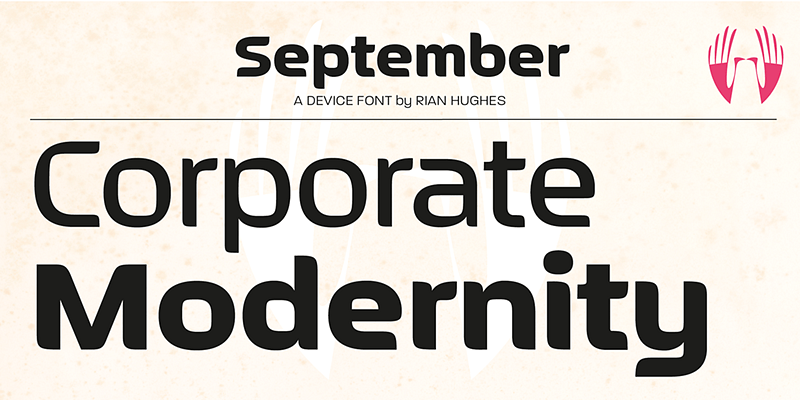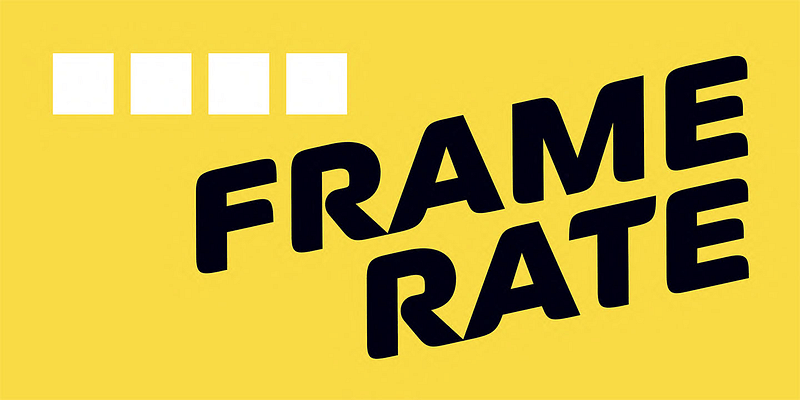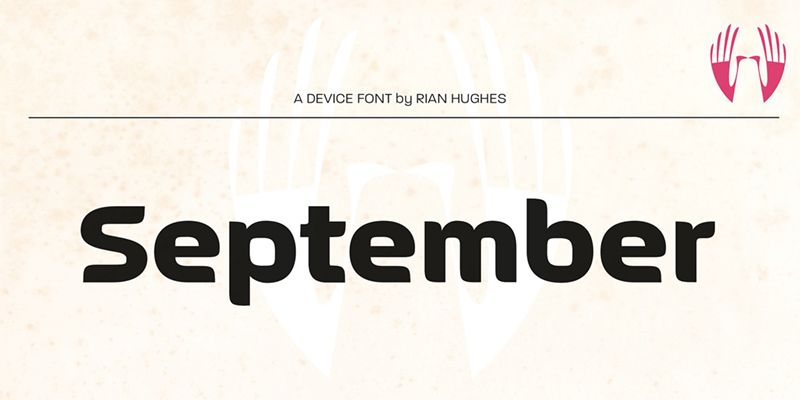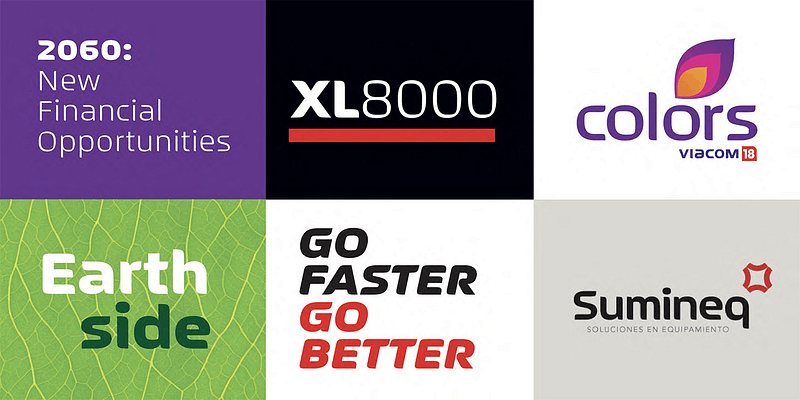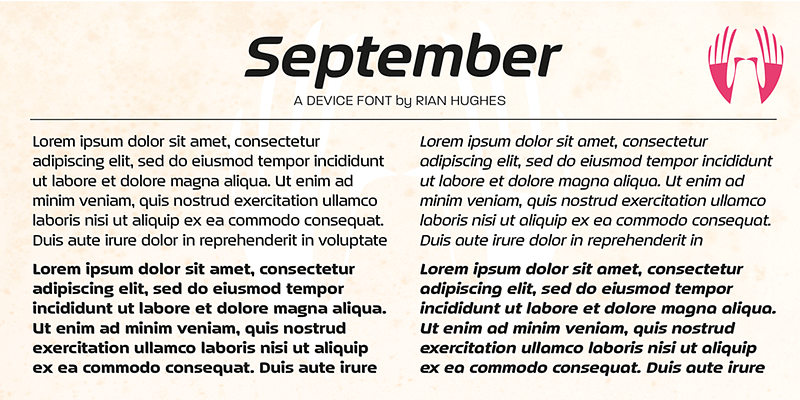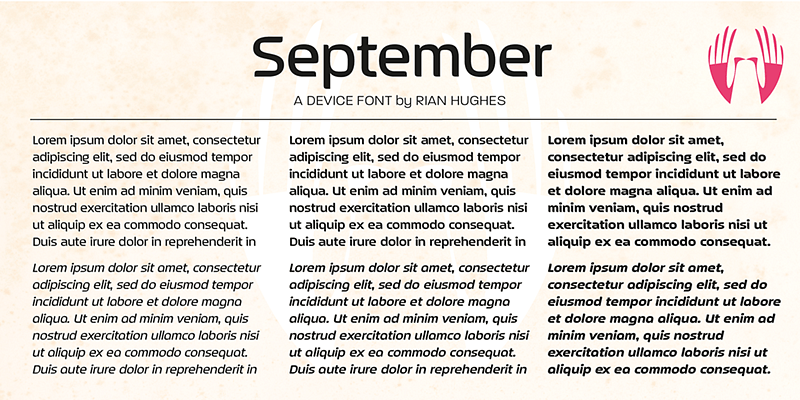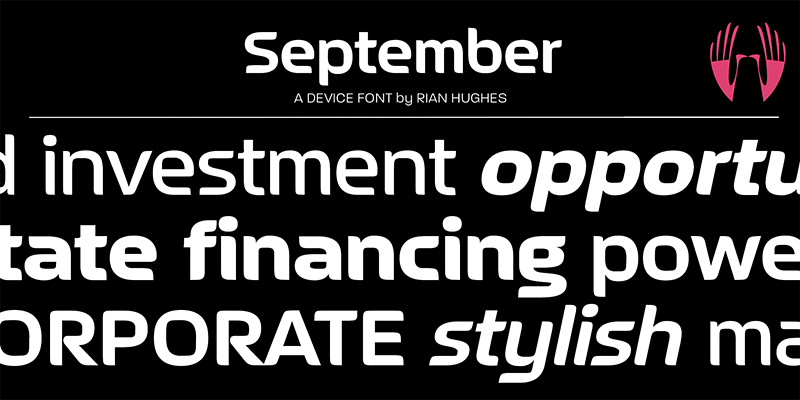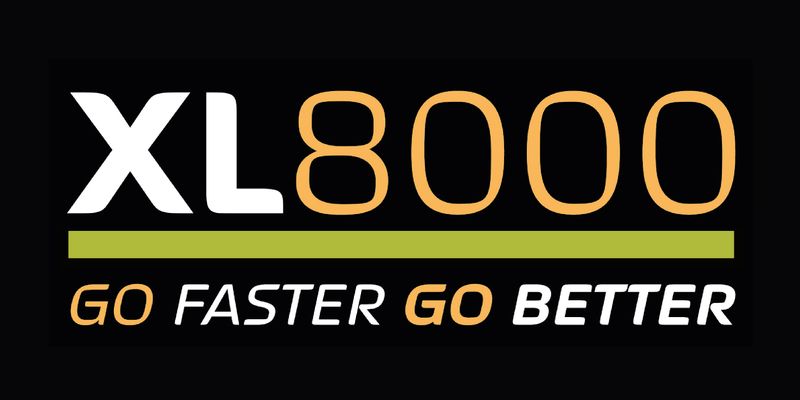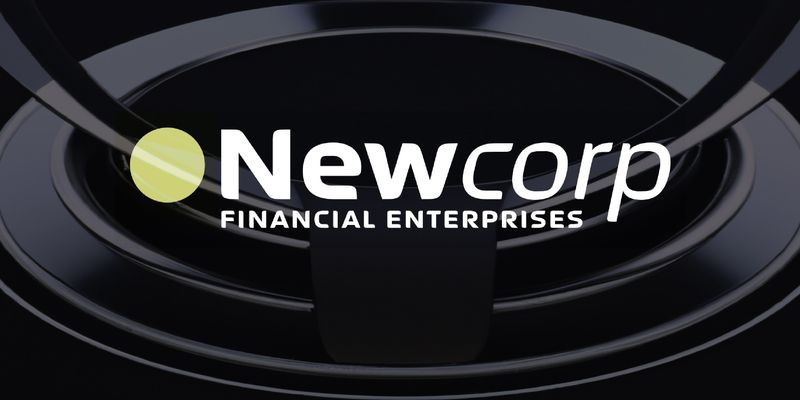
A strong, corporate family that also suggests an approachable professionalism, September is a simple three-weight core family plus italics.
Type, design and imagery by English illustrator and typographer Rian Hughes.